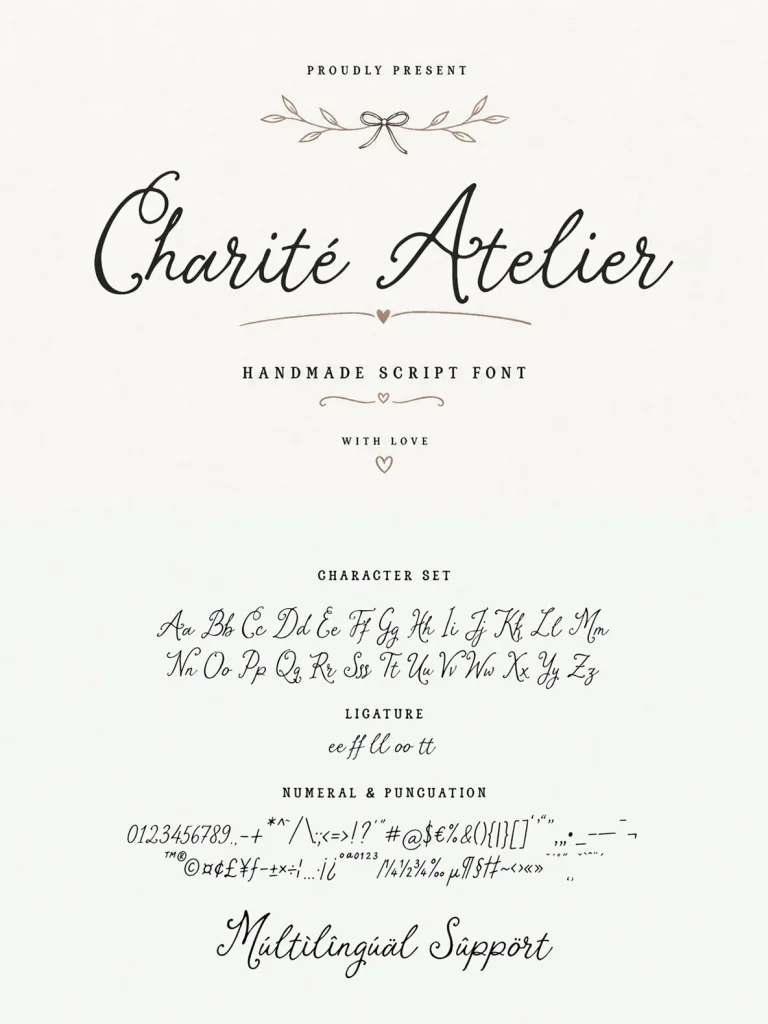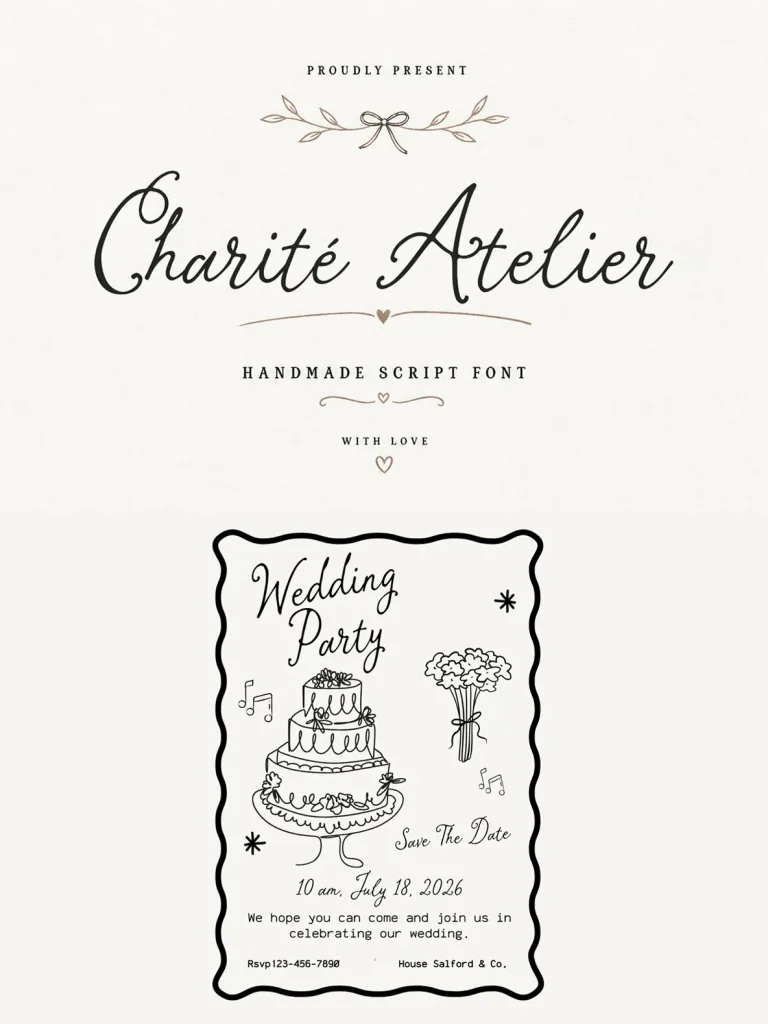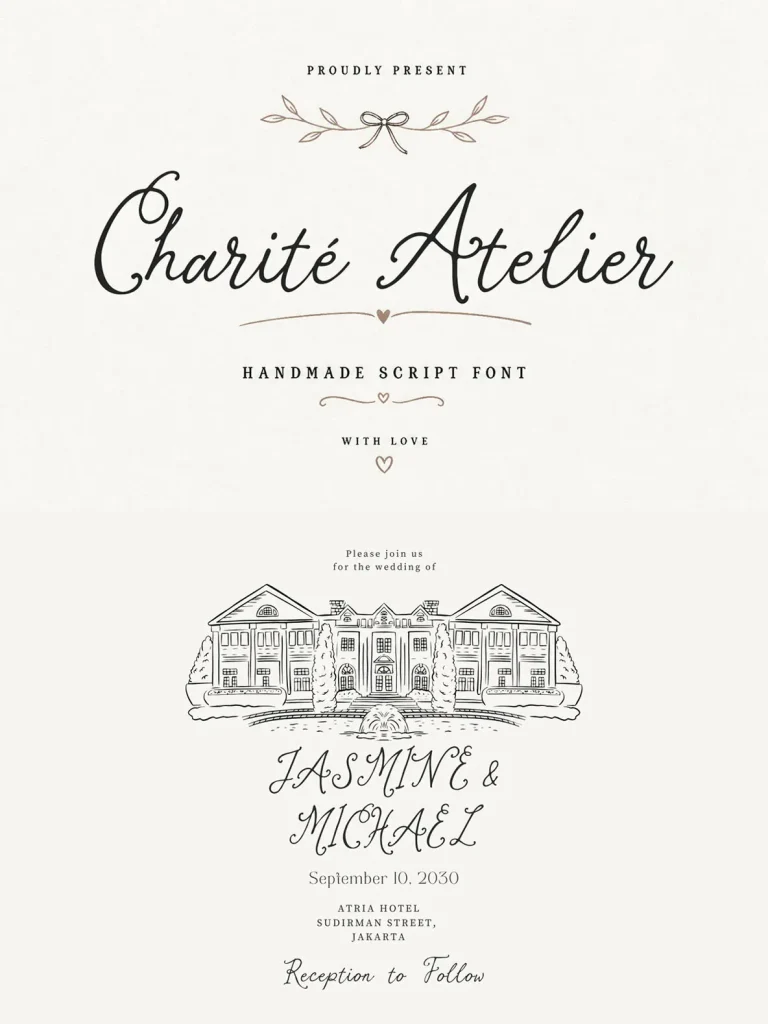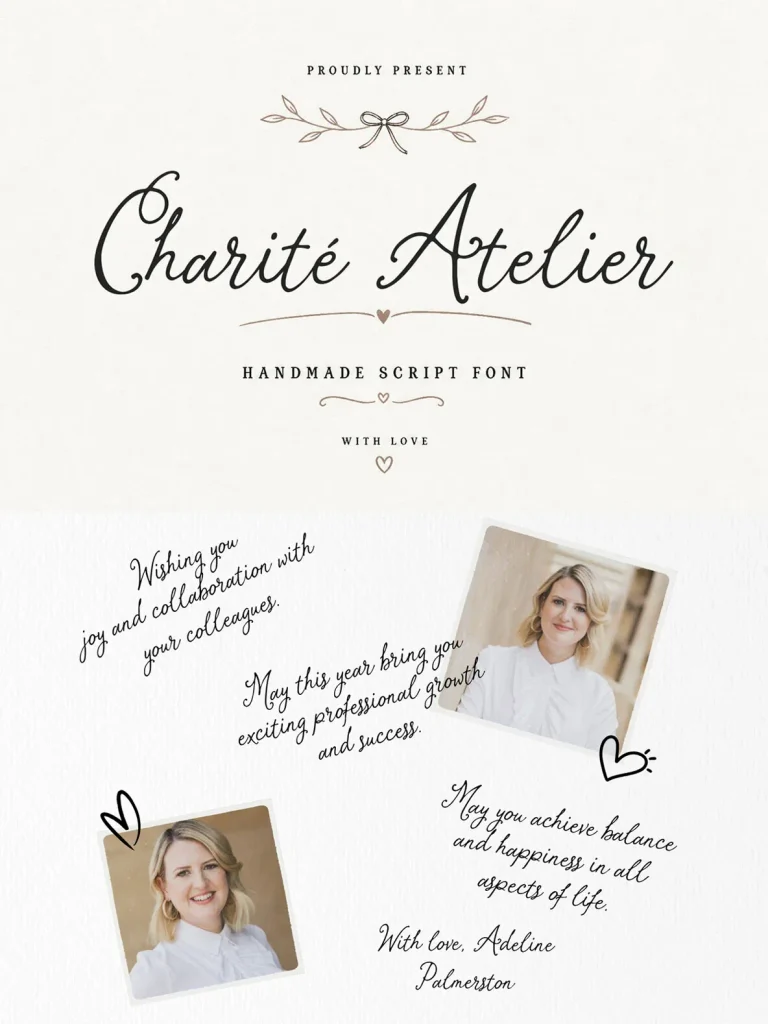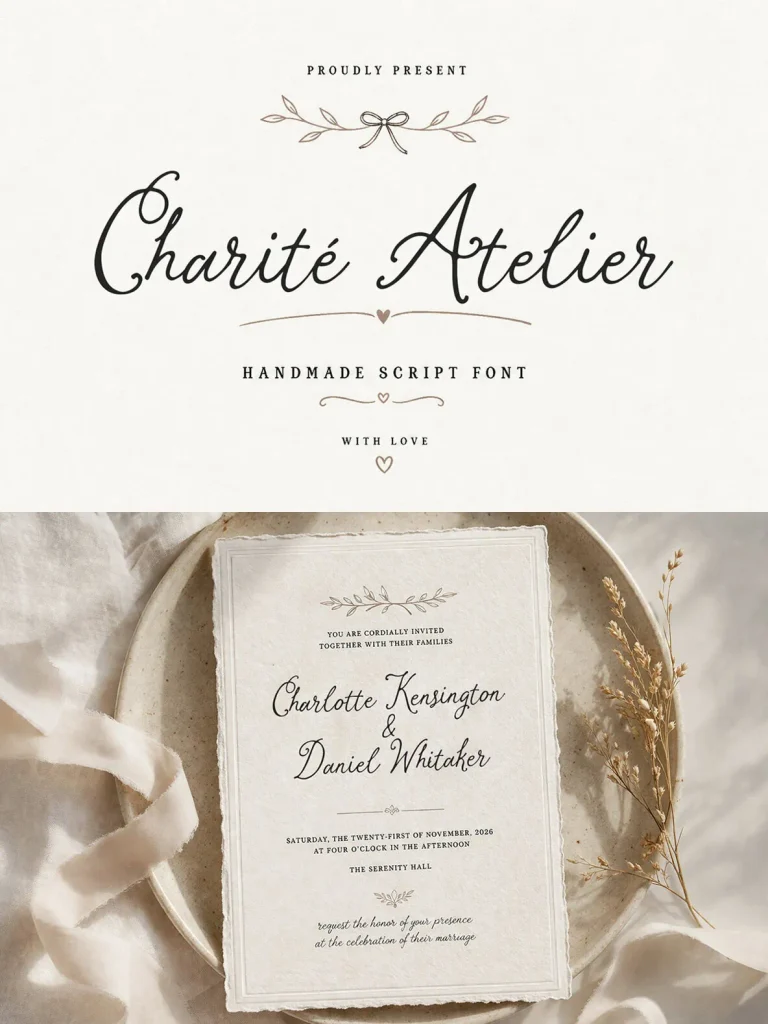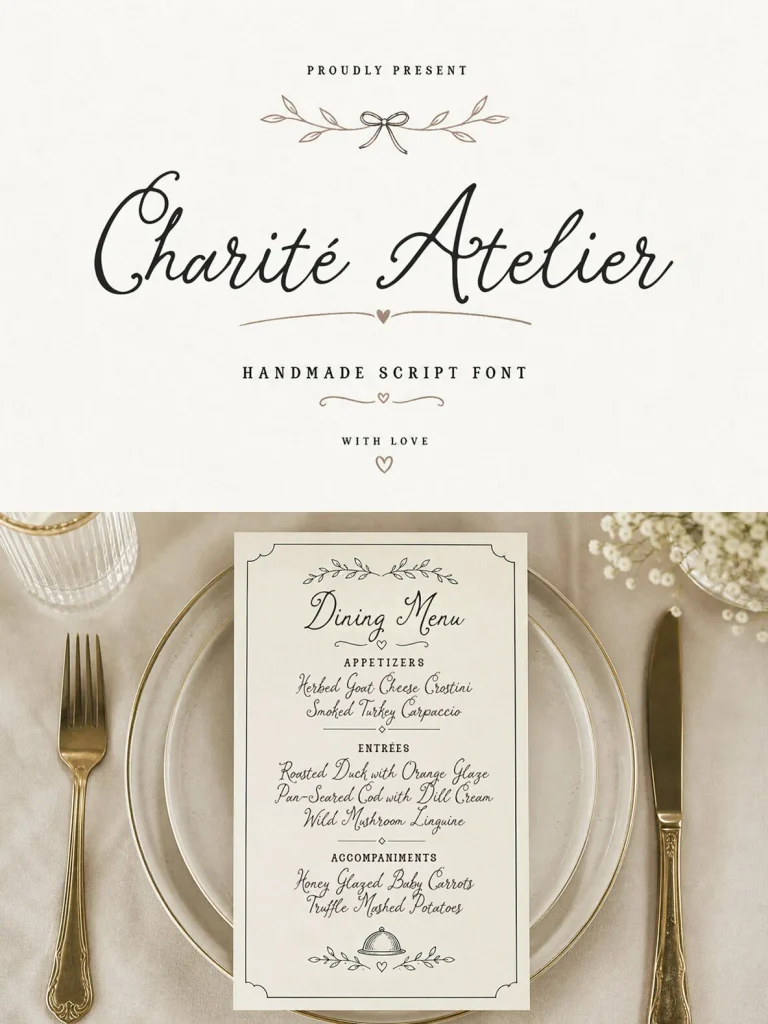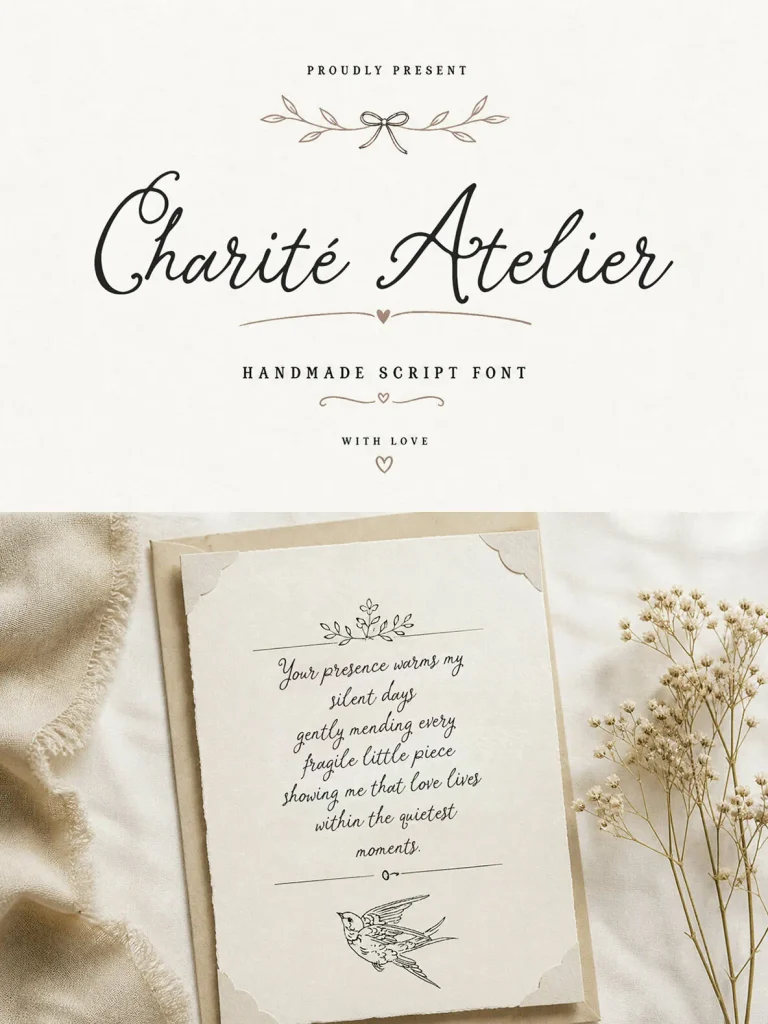
Charite Atelier Font
Charité Atelier — Grace in Handwritten Form
Charité Atelier is a graceful handmade script font with elegance, romance, and timeless beauty at its center. Its flowing curves and delicate strokes give each word a natural handwritten feel that looks sophisticated yet personal. Carefully drawn letterforms create smooth connections across the text, making this script typeface well suited to projects that need a refined, artistic touch.
With stylish ligatures and balanced letterforms, Charité Atelier supports seamless typography for branding, wedding invitations, logos, social media graphics, packaging, and editorial designs. The font carries warmth and charm, with a character that feels especially fitting for feminine and luxury-themed work. It is a polished choice for designers seeking expressive handwritten typography with poise and softness.